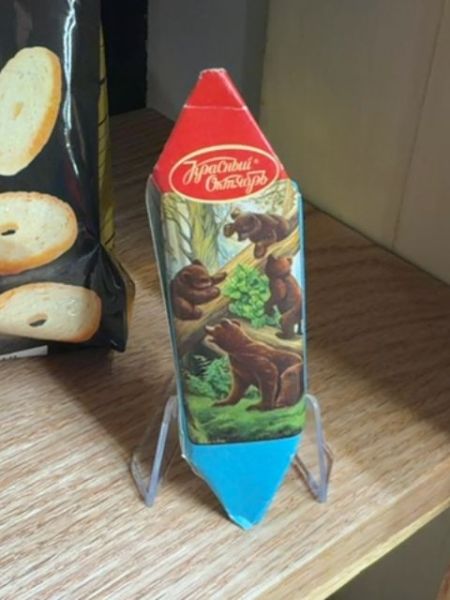
Typography
The typography features a traditional script style, lending an elegant and classic touch to the design. The text is prominently placed within an oval shape on the red section of the packaging, allowing it to stand out against the illustrative background.
Packaging
The packaging is designed in a unique, elongated triangular shape, resembling a pencil, with a vibrant red and blue color scheme. It features an illustration of bears in a forest setting, which adds a playful and natural theme to the design.
Facts
- The packaging is visually striking due to its shape.
- The illustration adds an engaging element for potential consumers.
- The use of color combination enhances its visibility on shelves.